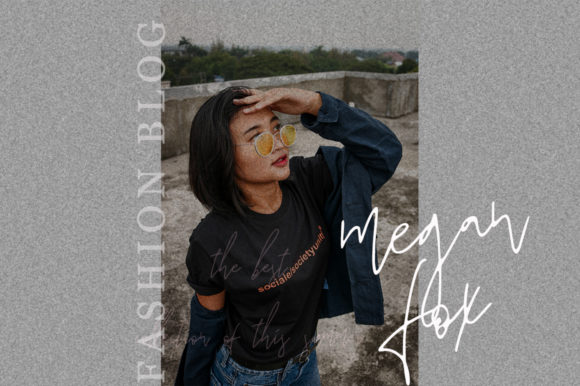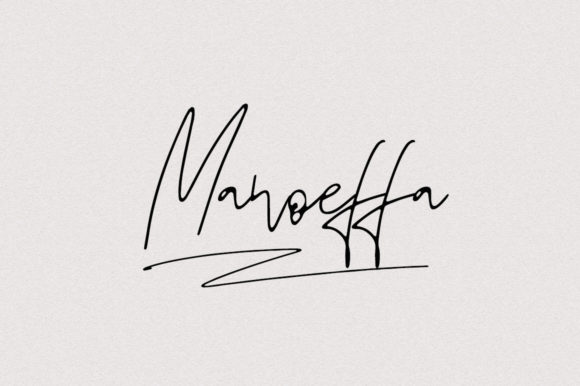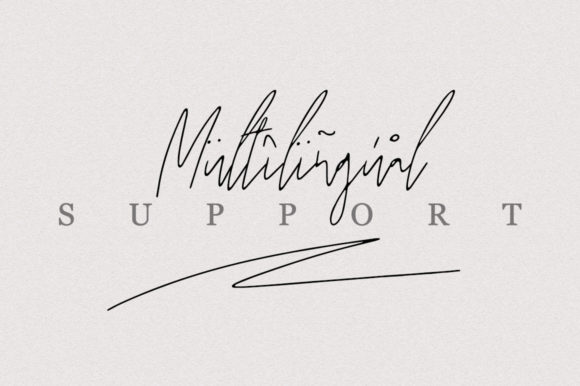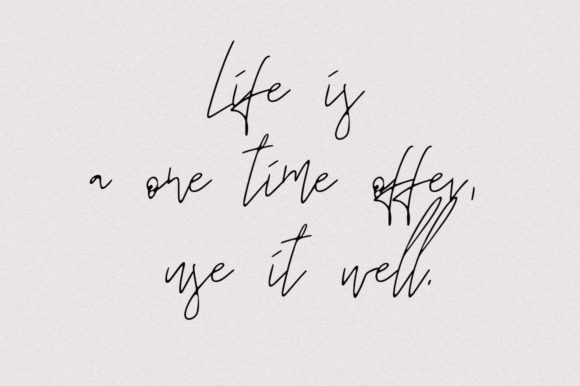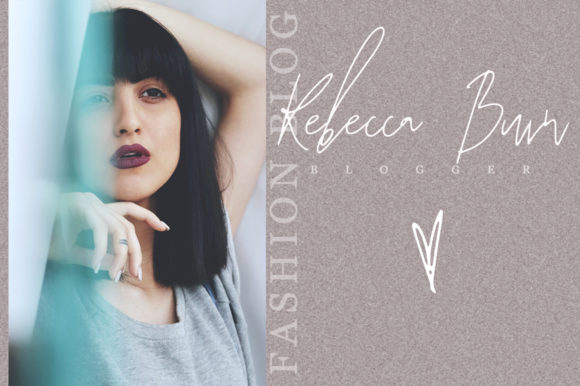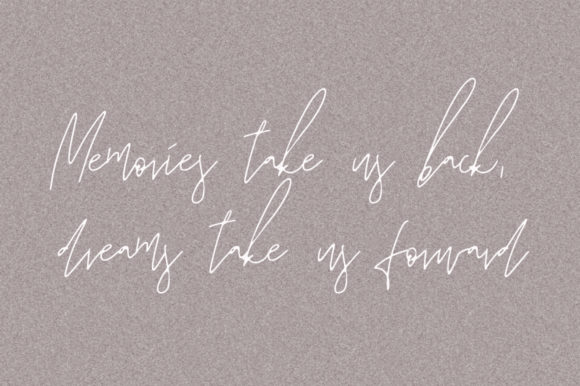
Introduction to Manoeffa Font
Remember the moment when you stumbled upon the perfect font for your creative project? The one that elevates your design from good to exceptional? For many designers, that moment is a game-changer. It’s the difference between a generic look and a unique, high-quality visual identity. And that’s exactly what you get with the Manoeffa Font – a cool, yet elegant handwritten font that adds a touch of sophistication to any project.
As a valuable resource for designers, the Manoeffa Font is a must-have for anyone looking to take their creative work to the next level. With its sleek, modern design, this font is perfect for a variety of projects, from logos and branding materials to social media graphics and digital content. And the best part? It’s available for free download, making it an accessible design resource for creatives of all levels.
Key Features of Manoeffa Font
- Unique, modern design style makes it an excellent choice for creative projects and design resources
Honest Review: Manoeffa Font
I recently had the chance to work with the Manoeffa Font on a creative project, and I must say it was a pleasant experience. This free download is a high-quality addition to any design resource collection.
What works well: ✨ The Manoeffa Font has a beautiful, modern aesthetic that makes it perfect for digital designs. The transparent background allows for seamless integration with other design elements. The font’s versatility makes it suitable for a wide range of creative projects.
The font family consists of several styles, including regular, bold, and italic, giving designers ample options for their projects.
- High-quality design suitable for digital use
- Several font styles available (regular, bold, italic)
⚠️ One limitation of the Manoeffa Font is its limited language support. While it’s perfect for English and other Latin-based languages, it may not be suitable for languages that require more complex scripts.
Overall, I’m impressed with the Manoeffa Font and would recommend it to designers looking for a high-quality, free design resource.
Tips for Getting the Most Out of Manoeffa Font
To get the most out of Manoeffa Font, use it with a transparent background to create a clean and modern look. You can also use it in combination with other design elements to create a unique and eye-catching design.
The Manoeffa Font is perfect for a variety of creative projects, including branding, marketing materials, and digital designs. It’s also great for creating titles, headings, and other text elements that require a high-quality font.